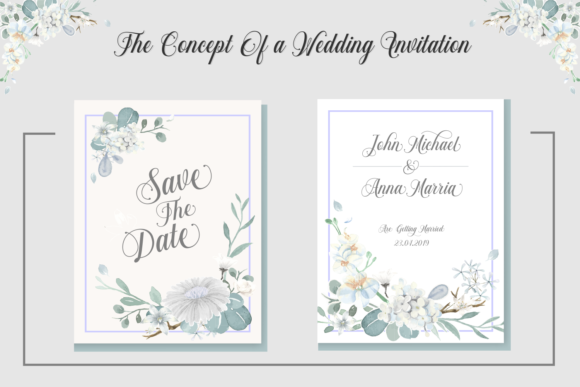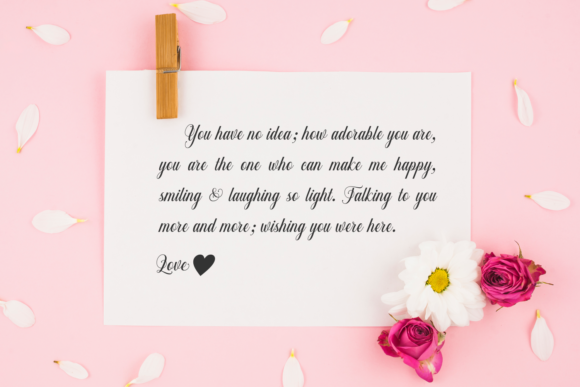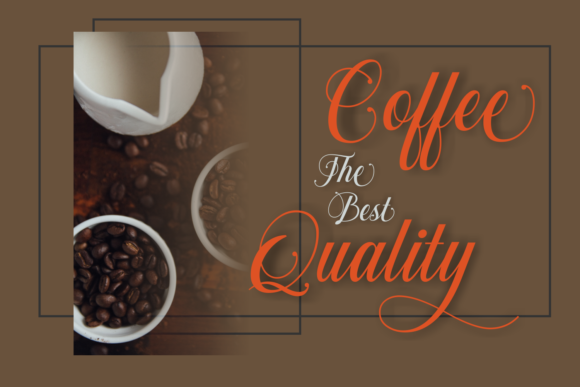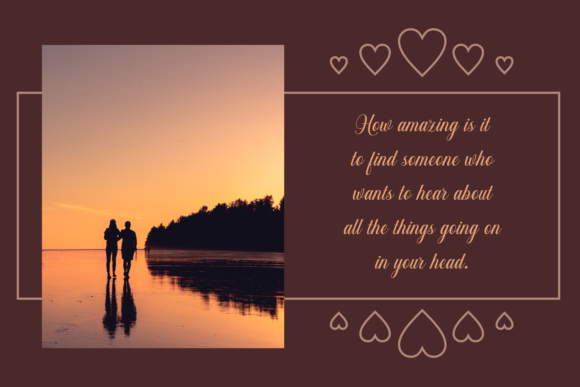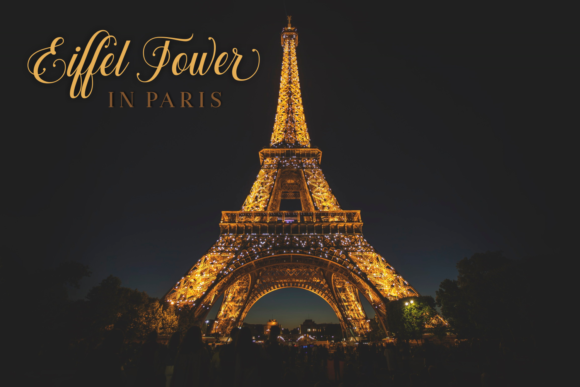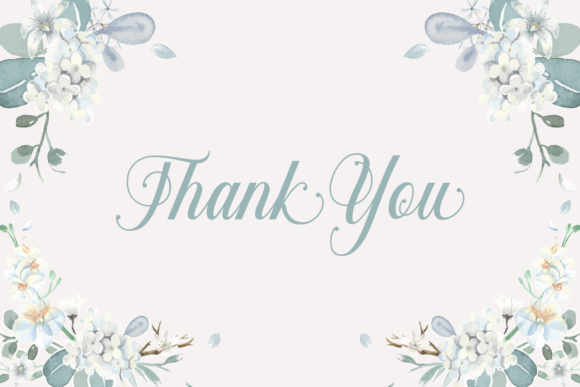
Chalisa Oktavia Font
About Chalisa Oktavia Font
The Chalisa Oktavia is an amazing script font. It has beautiful swooshes and swashes which give it an elegant feel, while still keeping a great readability. It’s the perfect font to add a feminine and elegant touch to your designs.